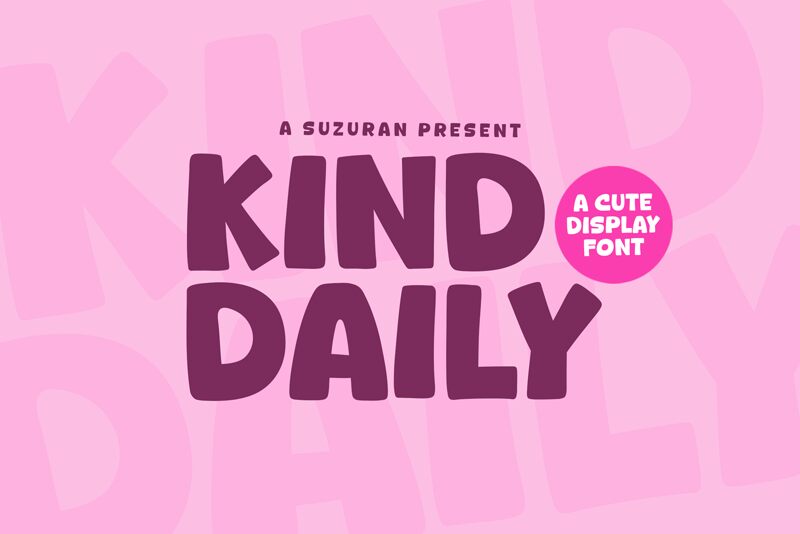
Kind Daily
Kind Daily font by Khurasan is a bold cartoon display typeface with a casual, friendly look. Featuring peculiar letter shapes and details, it evokes retro vibes and generates contemporary designs for branding or other purposes. Users can get immediate attention to whatever they write with this unique creation.
Free uses of Kind Daily include inviting posters and banners, cheerful movie titles, attractive book covers, funky packaging designs, pretty apparel items and accessories, personalized social media campaigns, scrapbook writing additions or animations.